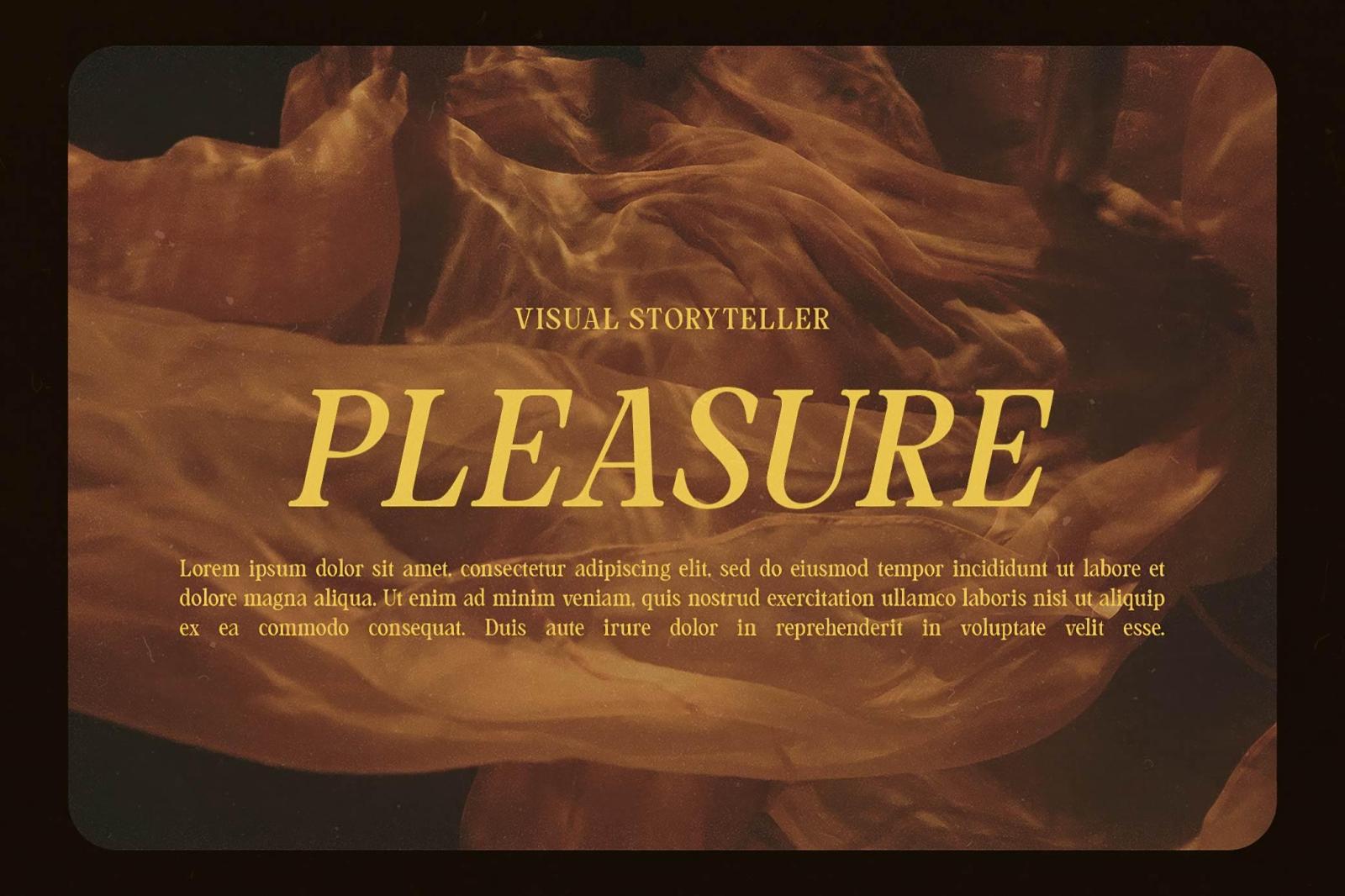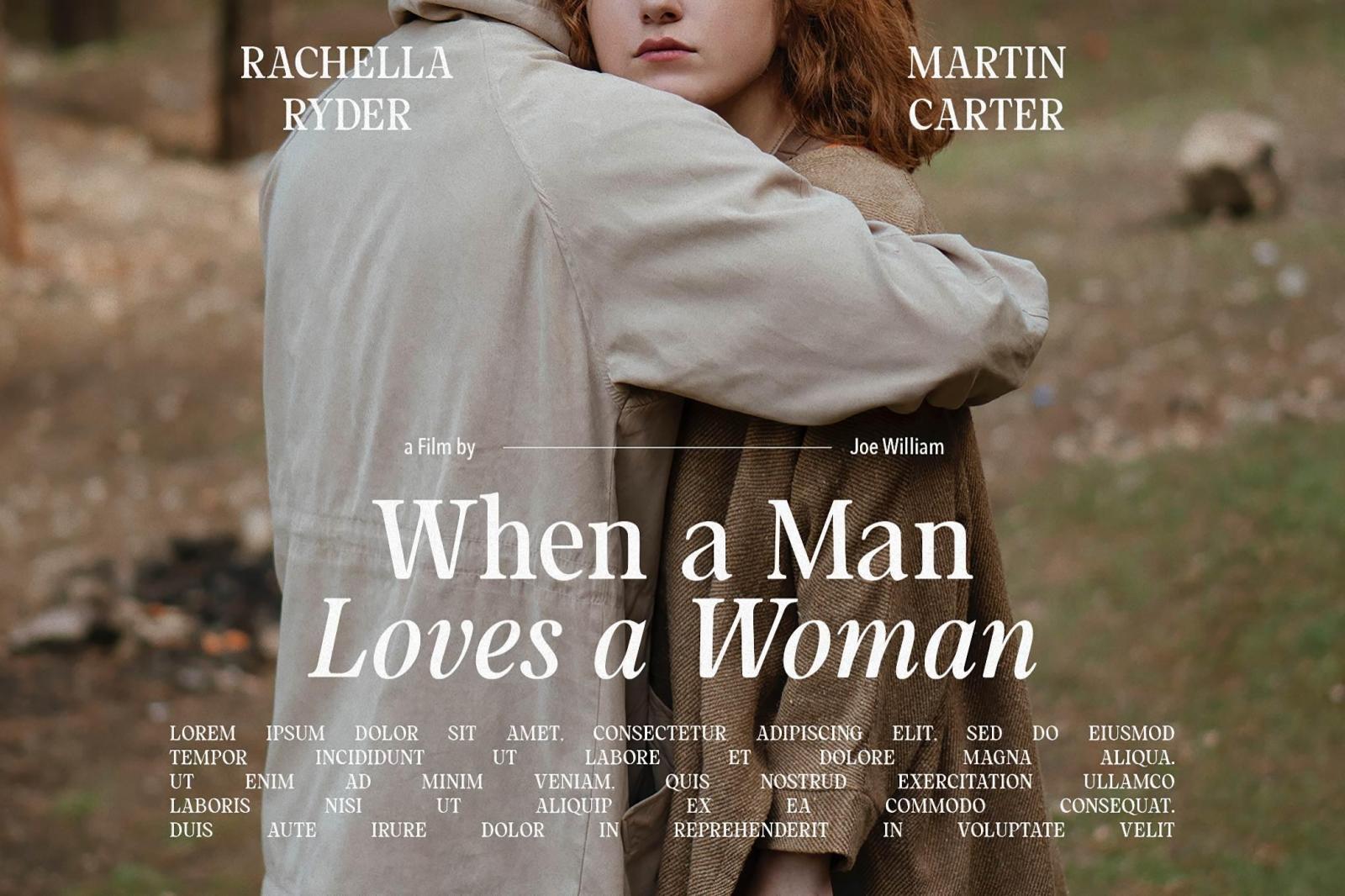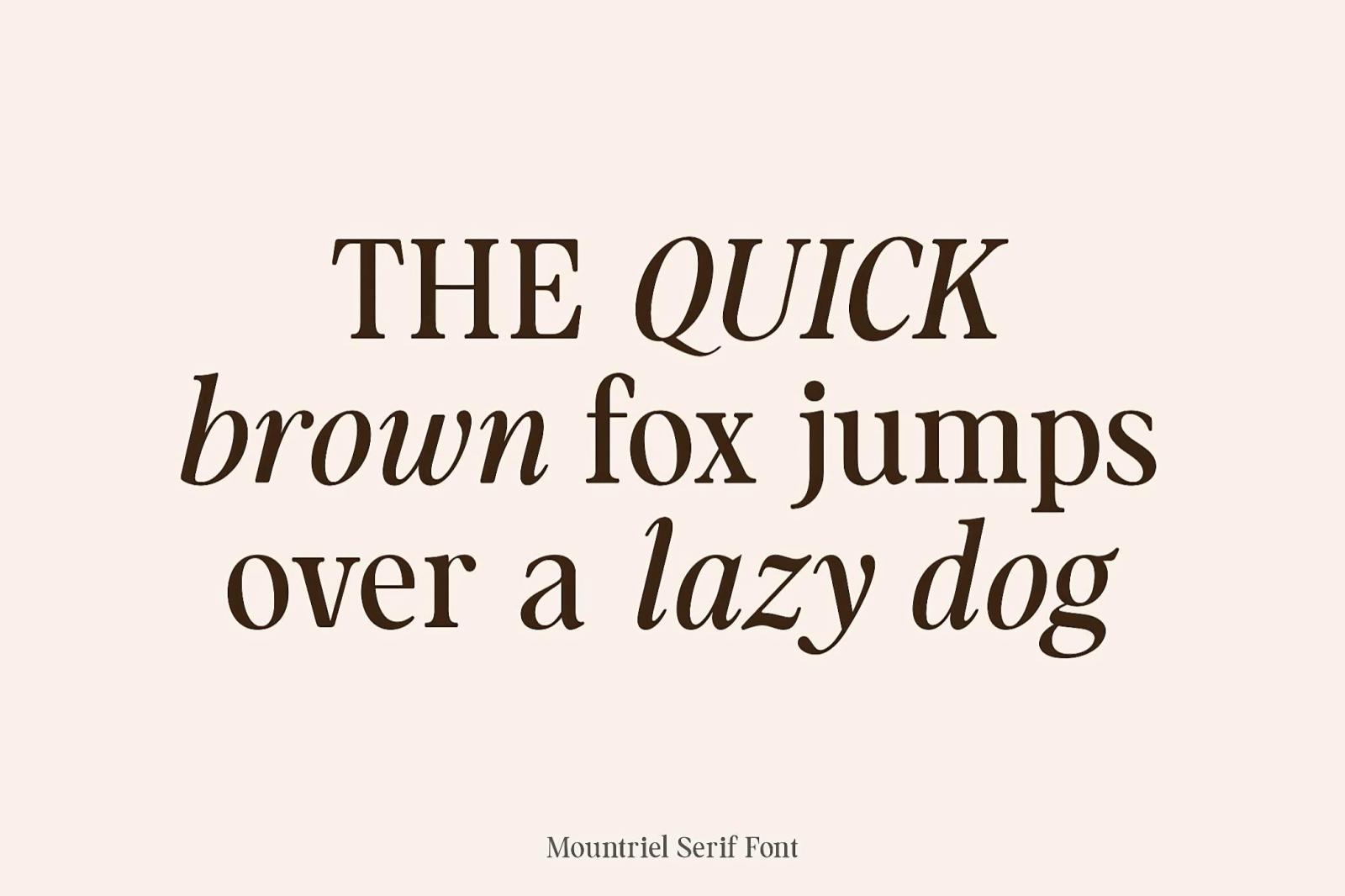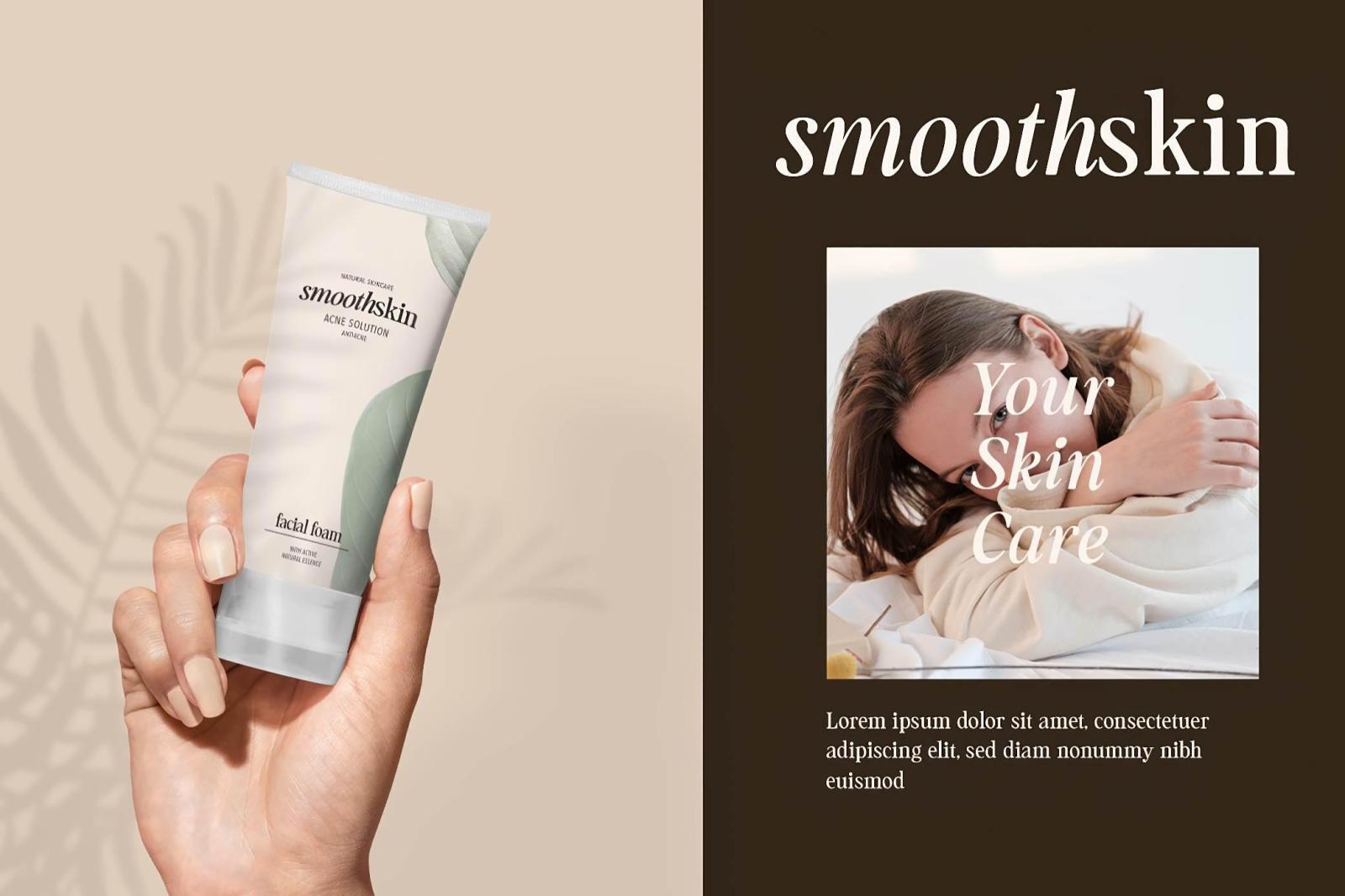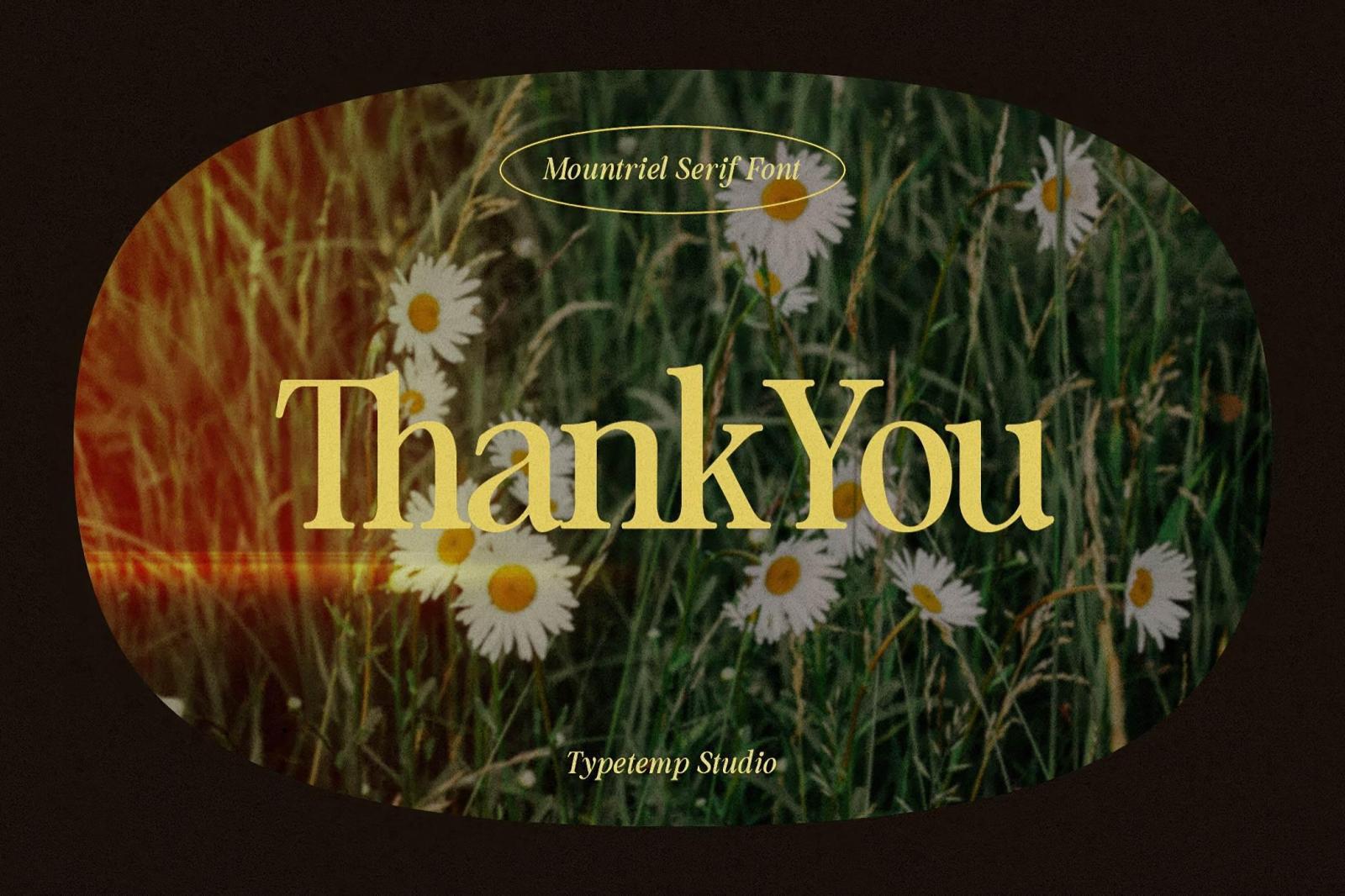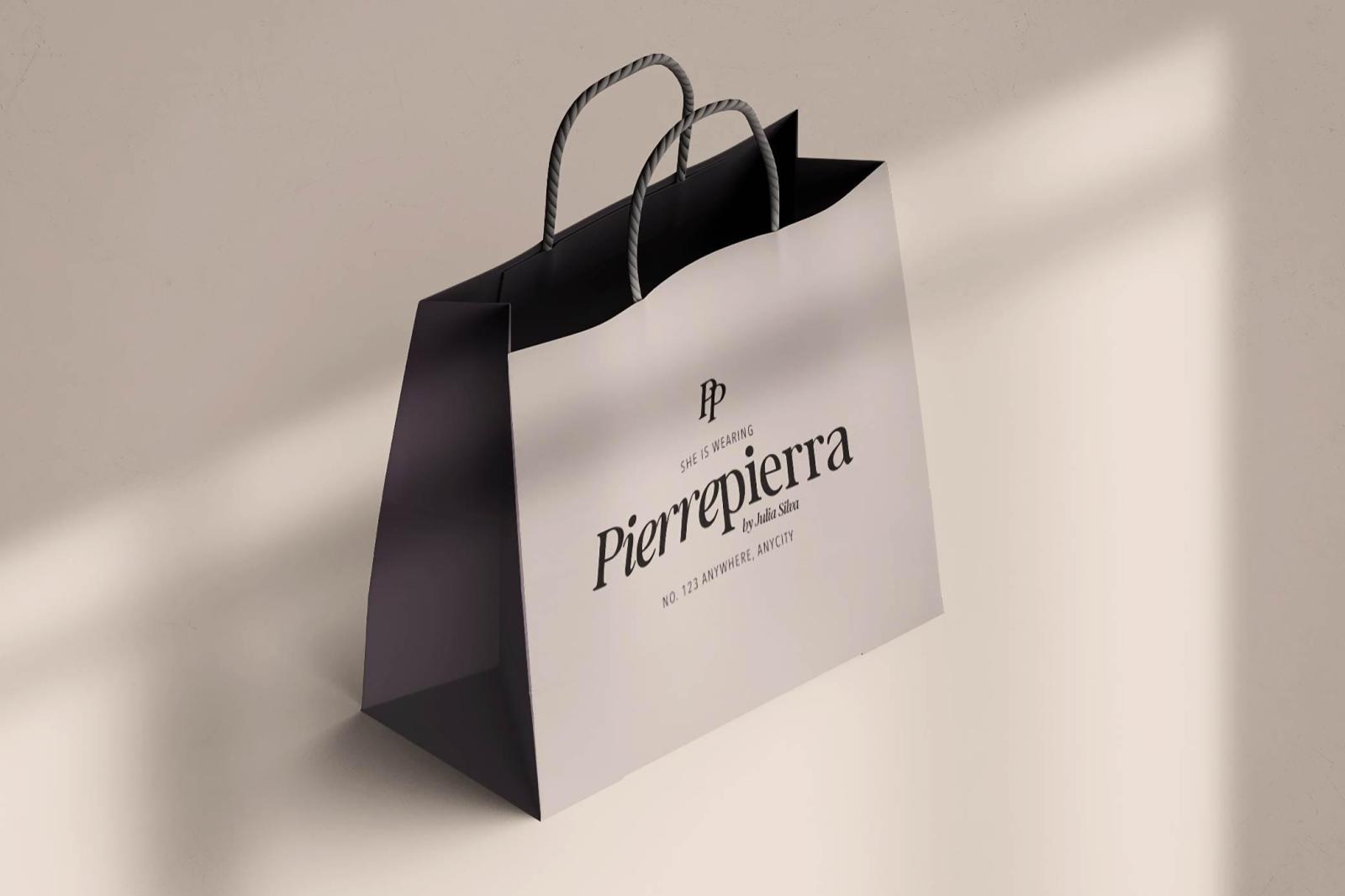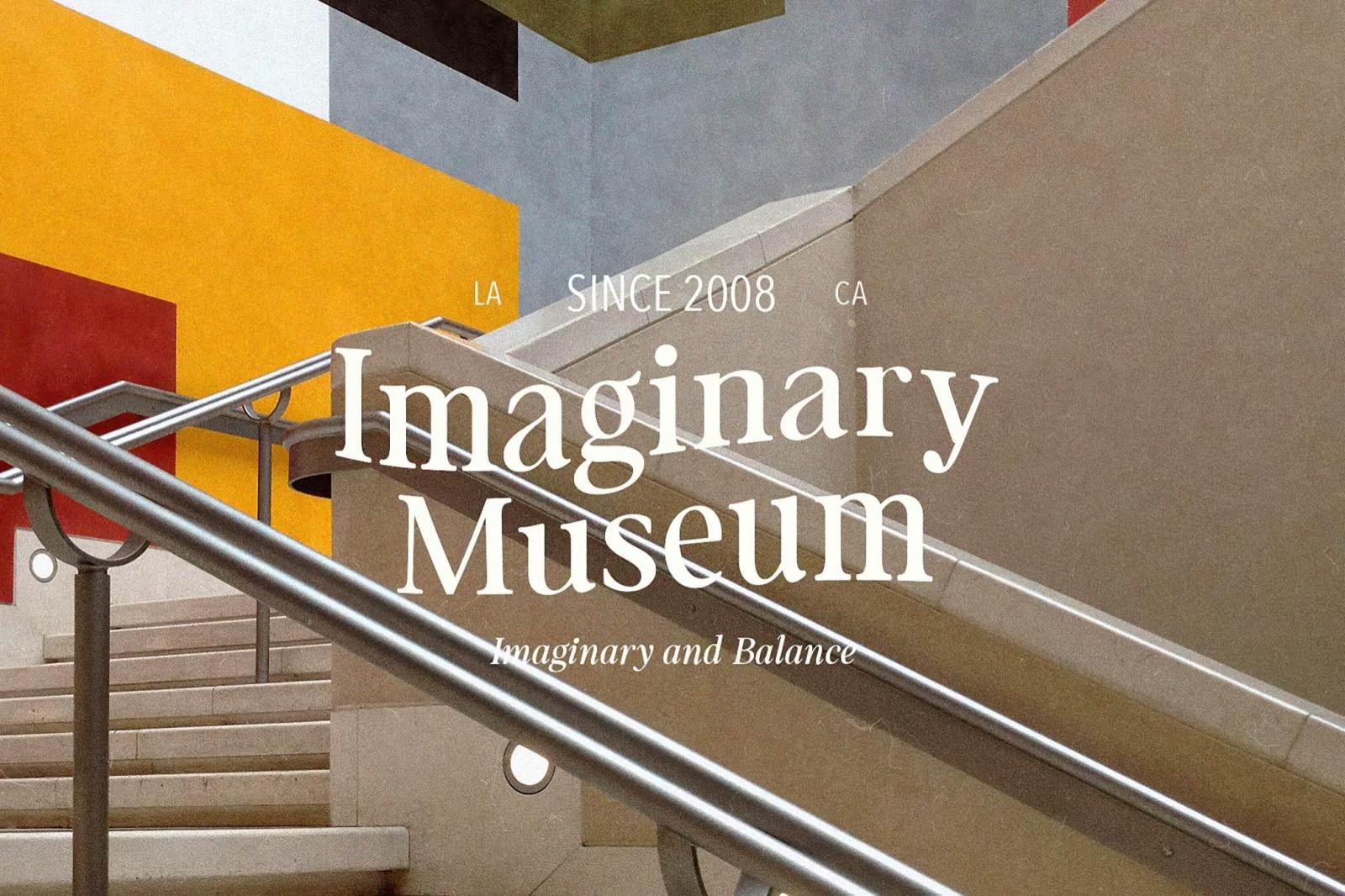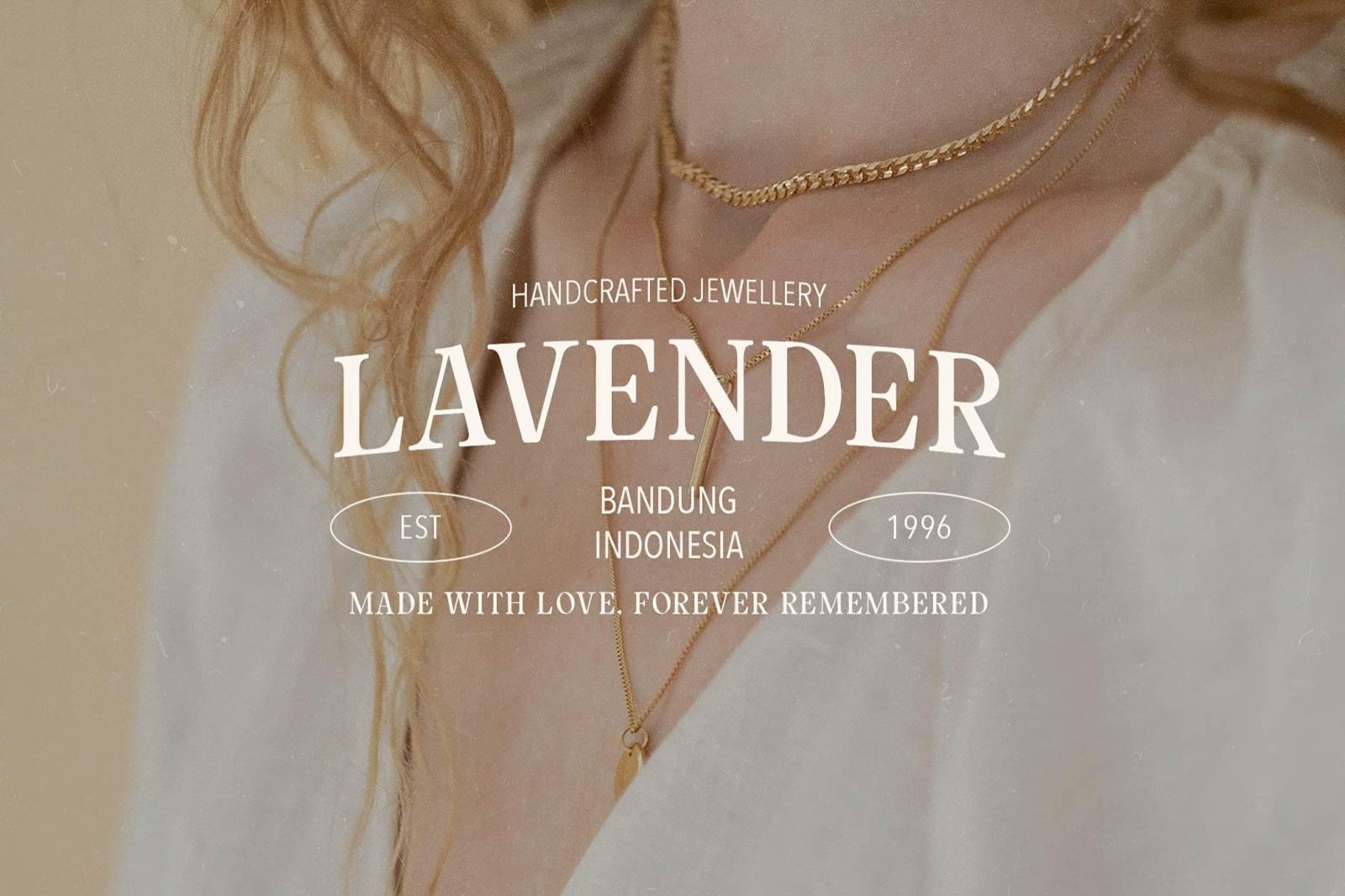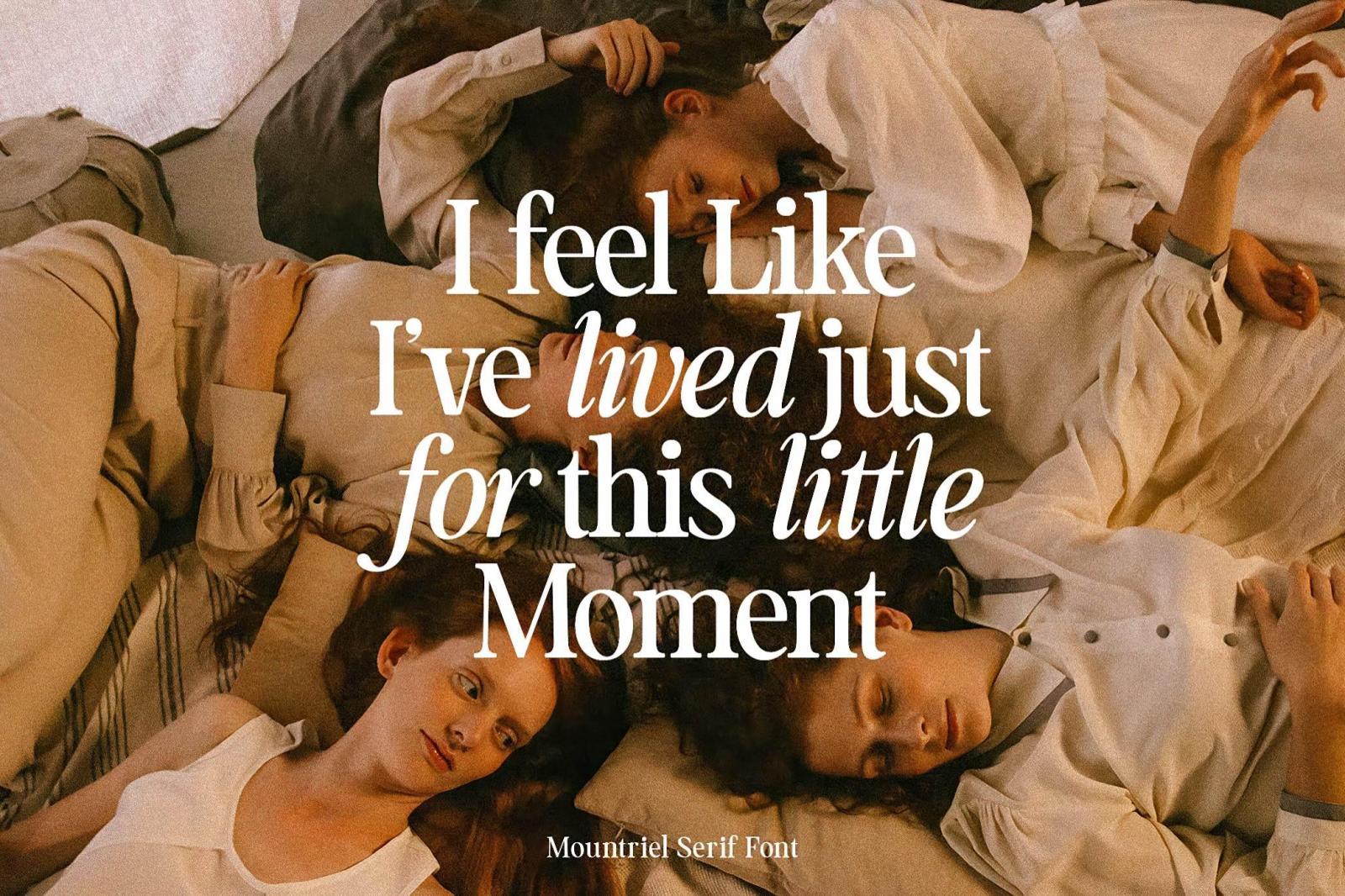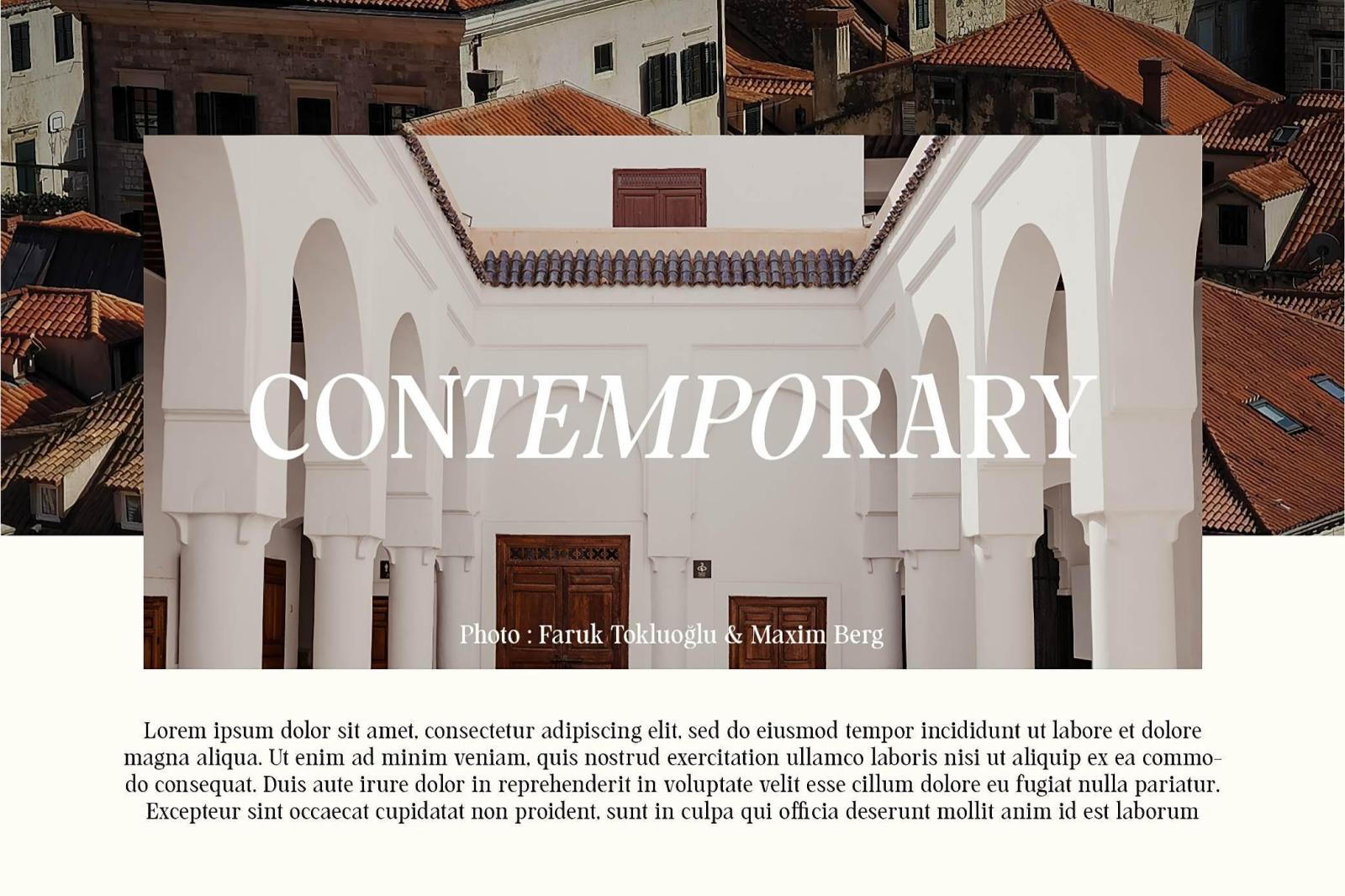
Mountriel — Classic Serif Font
Cambio dolor por libertad! Mountriel's presence would make any 90s soap opera proud — think Wild Angel meets timeless typography. Each letter is crafted with precision, combining the bold confidence of retro serifs with a classic letter design.
The beauty of Mountriel is in the details: each curve, line, and serif is meticulously built to evoke elegance without overdoing it. With two refined styles — regular and italic — plus a complete character set (including alternates and ligatures), it's versatile yet grounded, perfect for any project that calls for a touch of nostalgic sophistication. And if your audience is global, Mountriel has you covered with full multilingual support, letting your designs speak in Spanish, Italian, and beyond.